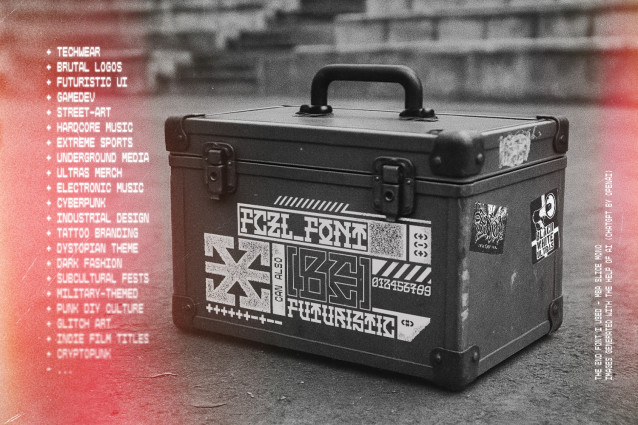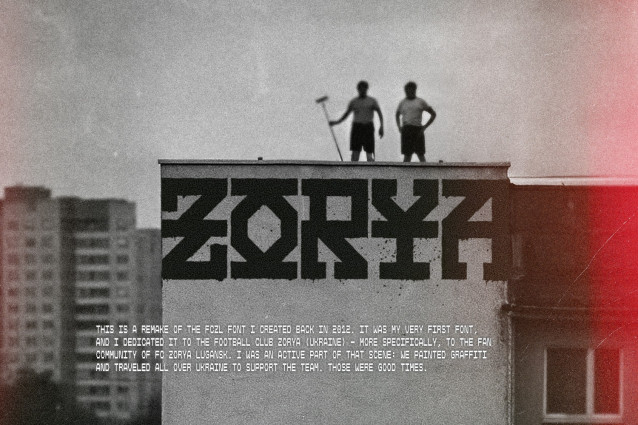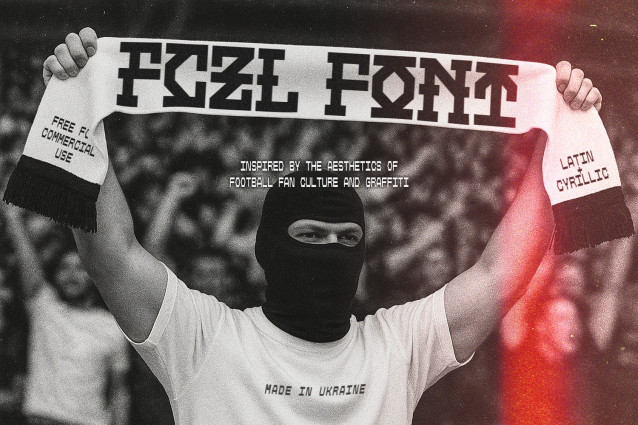
Fczl Font
FCZL font is a modular geometric typeface inspired by the aesthetics of football fan culture and graffiti. This is a remake of the FCZL font I created back in 2012. It was my very first font, and I dedicated it to the football club Zorya (Ukraine) — more specifically, to the fan community of FC Zorya Lugansk. I was an active part of that scene: we painted graffiti and traveled all over Ukraine to support the team. Those were good times.
Now, in 2025, it has been more than ten years since the war began in my country, and my city, Lugansk, is occupied by Russia. The football club no longer plays there, and my ultras friends and I had to leave. Some of them have died as combatants. I want to dedicate this font to those guys.